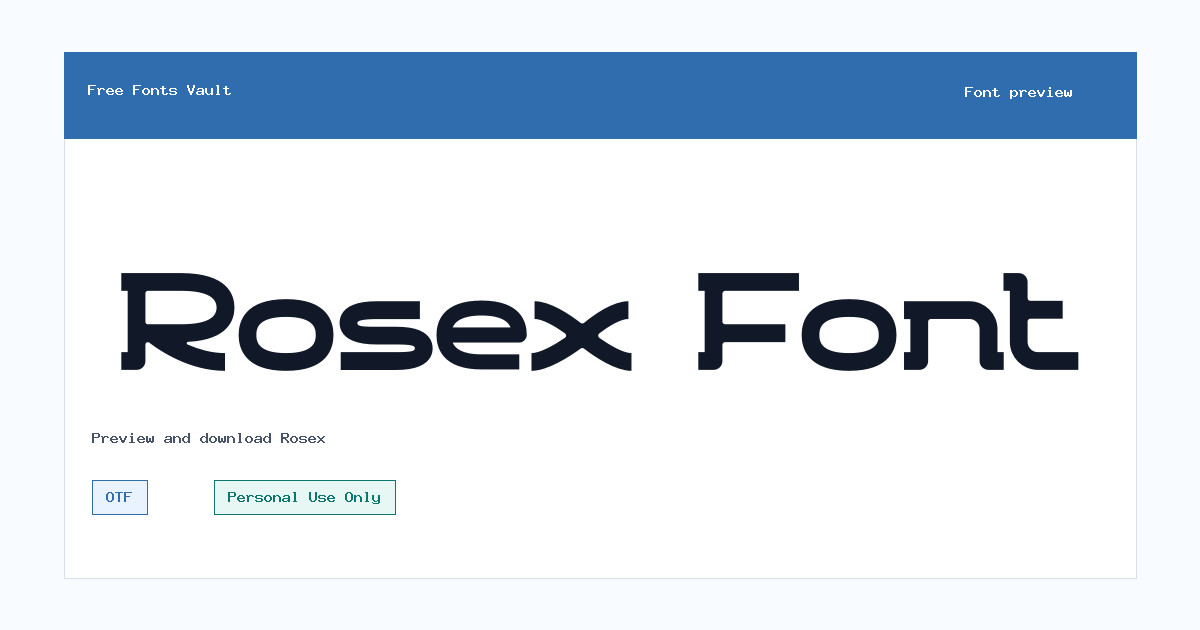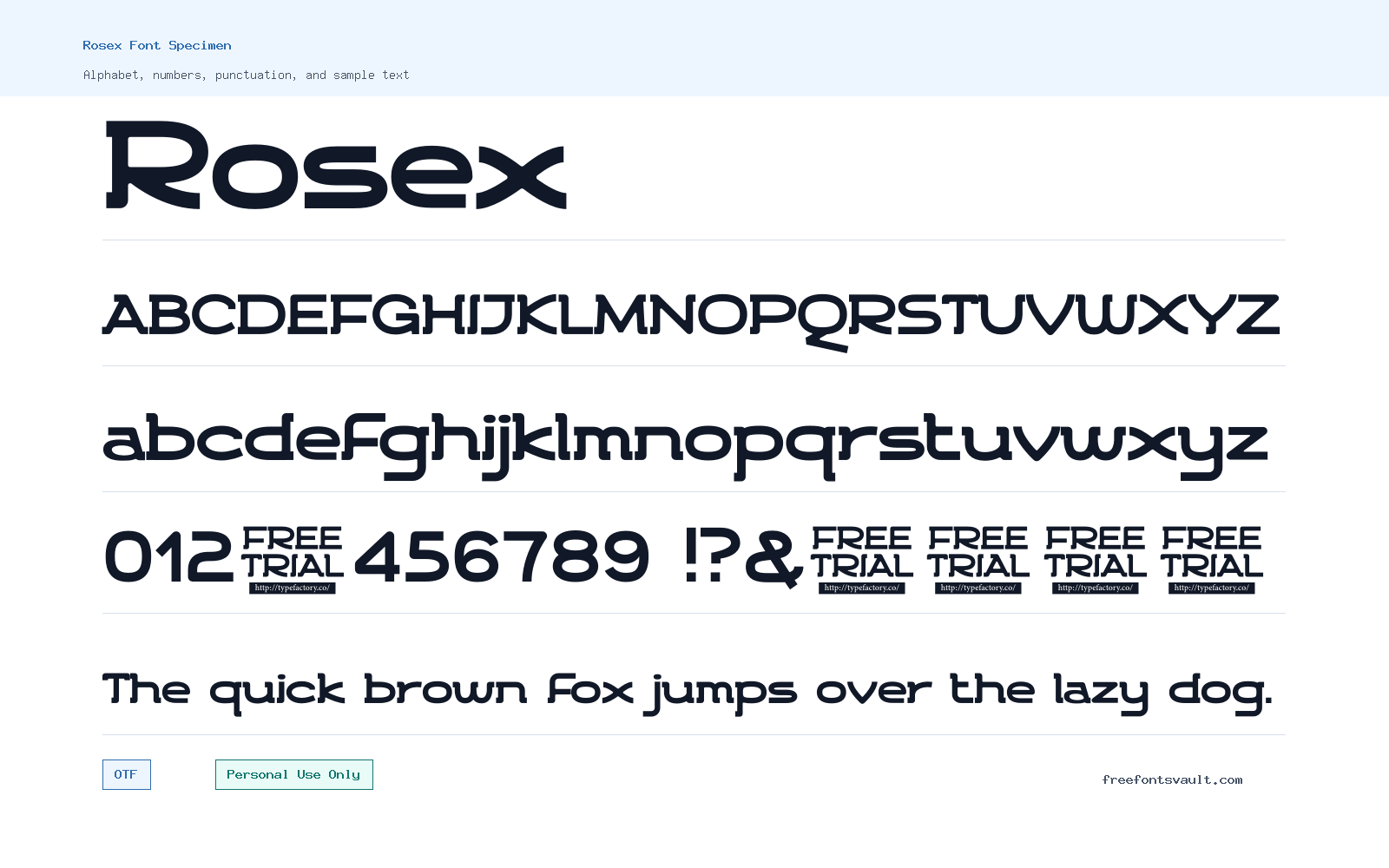
Rosex
- Designer Typefactory, Inc.
- Foundry Typefactory, Inc.
Rosex font.
Rosex is a sans serif font family from Typefactory, Inc. It is offered as an OTF regular style and is best approached as a clean trial font for personal design testing, mockups, and non-commercial creative work.
About Rosex Font
Rosex gives visitors a straightforward sans serif option to test in the font preview before downloading. Since the downloadable file is the regular weight, it is a good starting point for checking the family’s basic rhythm, letter spacing, uppercase shapes, lowercase readability, numbers, and punctuation. Use the preview with your own words rather than only a sample phrase, because a font can feel very different in a logo name, a short heading, or a longer sentence.
For practical use, start with short text: poster headings, social graphics, mood boards, personal branding drafts, school projects, and layout concepts. Keep an eye on readability at smaller sizes, especially if you plan to use it for paragraph text or interface labels. A single regular weight can work well for simple compositions, but it may need support from another font when a design needs strong contrast. Pair Rosex with a readable serif for editorial layouts, a neutral sans serif for body text, or a softer script only when the script is used sparingly. Before using it in any public or client-facing project, review the license terms carefully because the listed license is Personal Use Only.
- Useful for previewing short text, headings, personal mockups, and layout experiments.
- Personal posters, social media graphics, and mood board typography tests.
- Logo drafts, title treatments, and simple non-commercial design concepts.
Rosex is credited to Typefactory, Inc., with Typefactory, Inc. also listed as the foundry.
Preview Rosex with the exact text you plan to use, including numbers and punctuation. Test it at both large and small sizes, and pair it with a highly readable body font if your design includes longer text.
Who designed Rosex?
Rosex is credited to Typefactory, Inc.
What should I test before downloading Rosex?